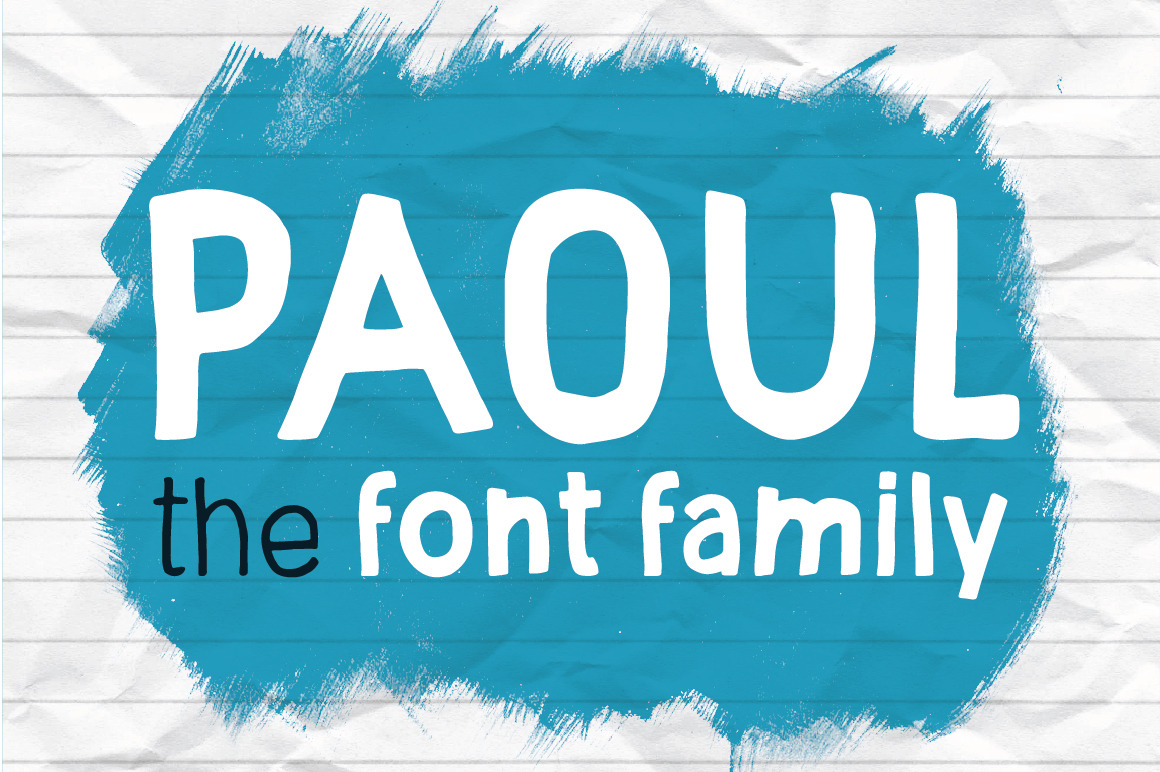
Paoul - The Headliner; Font Family
I wanted to create something eye-catching and handy for anyone who needs a visible font with strong personal impact. Every single letter's been hand-drawn with care. Comes in two variations - regular and bold for even better variability.
Suitable for any project which could use a personal feeling and handwriting look. From noticeable headlines to highly visible quotes, titles or else... (up to you, it's your font! )
No alternates or foreign alphabet are currently supported (includes only characters displayed on the last image)